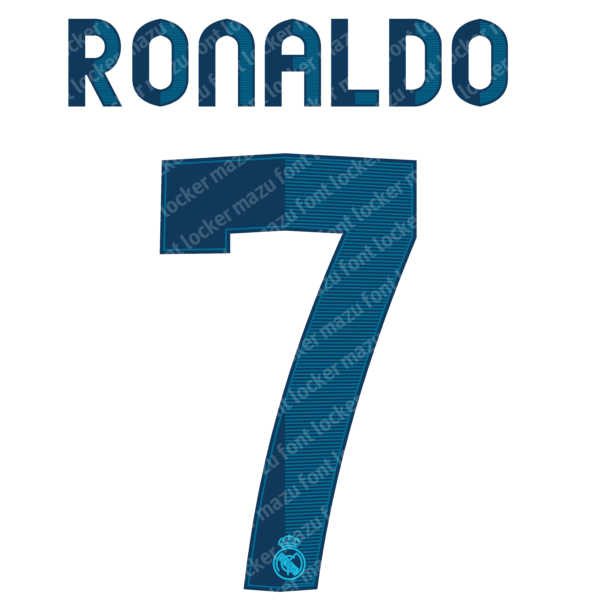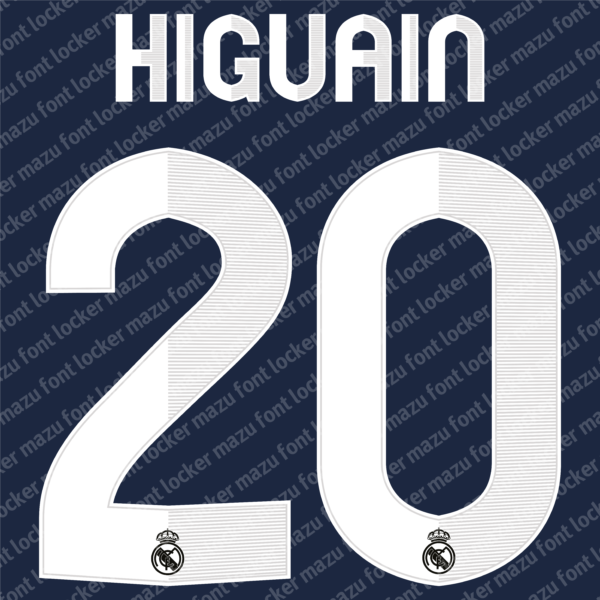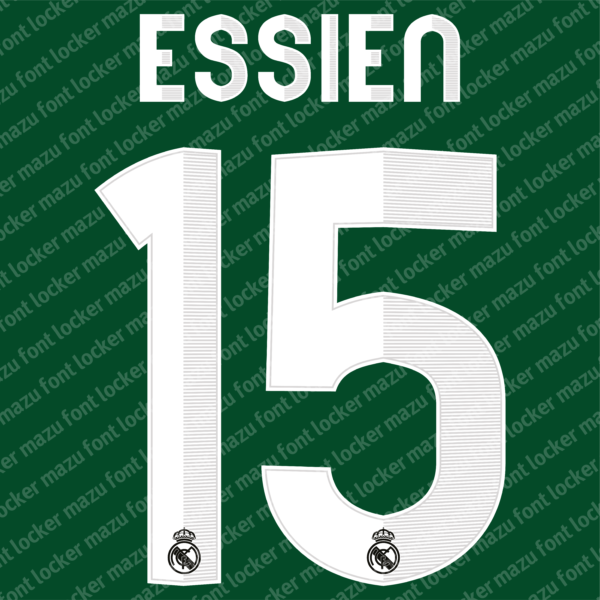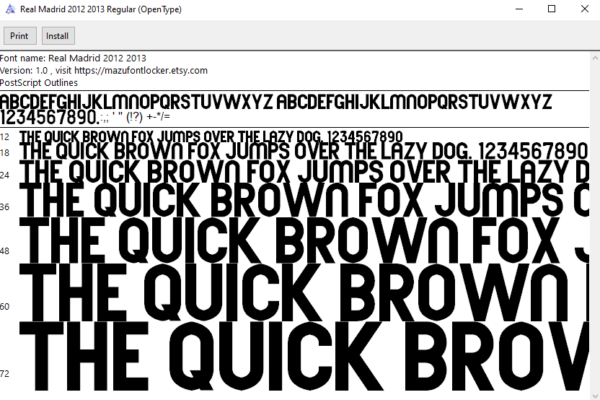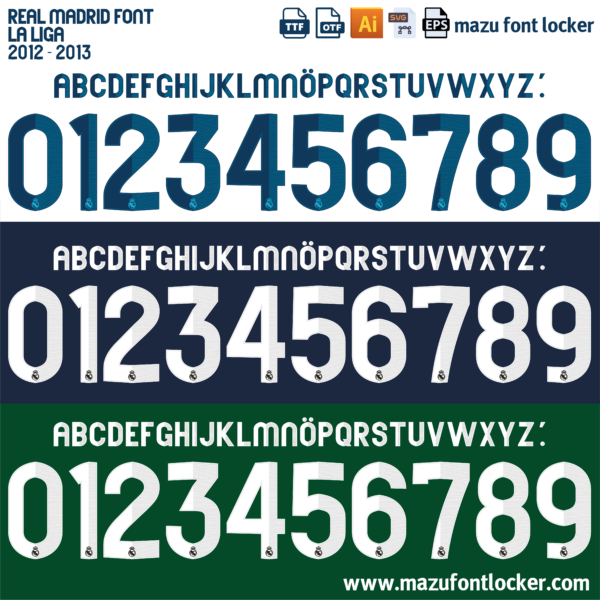
Real Madrid 2012-13 Font Vector – Legendary Champions League Glory
Real Madrid 2012-13 Font is a high-quality football jersey font vector designed to replicate the official lettering and numbering style used during the Laliga 2012-2013 season. This Real Madrid 2012-13 font is perfect for designers, football fans, and creators who want accurate and professional jersey customisation.
Inspired by the official kit of Real Madrid, this Real Madrid 2012-13 font delivers a clean and authentic match-day appearance. Every letter and number has been carefully recreated to match the real jersey design, ensuring your projects look realistic and professional.
Real Madrid 2012-13 Font Vector – Authentic Jersey Lettering
Real Madrid 2012-13 font is a high-quality football jersey font vector created to replicate the official lettering and numbering style used during the iconic 2012-13 Season. Perfect for designers, football fans, and jersey customisation projects, this font set delivers an authentic and professional match-day appearance.
🔥 Real Madrid 2012-13 Font Features
• Authentic 2012-13 Real Madrid jersey lettering style
The authentic lettering style helps recreate the classic look of the Real Madrid 2012-13 kit with professional accuracy.
Unlike generic jersey fonts, this set is designed with a strong focus on authenticity and accuracy. Every detail is based on the original match lettering style used during the 2012-13 season, helping designers and collectors create realistic football shirt designs.
This Real Madrid 2012-13 font vector set is designed for authentic football jersey customization and works perfectly for retro football projects, collector designs, and professional sportswear artwork.